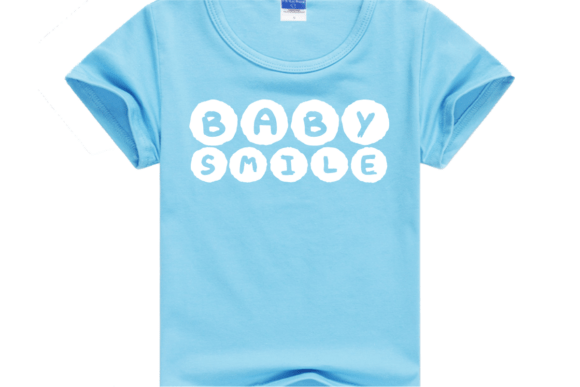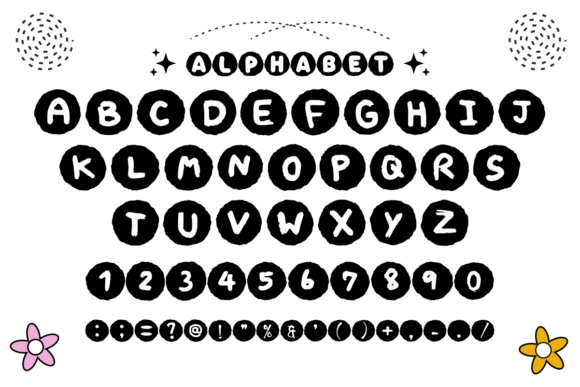
The Perfect Party Companion: Unlocking the Magic of Birthday Party Font
You know that moment when you’re brainstorming ideas for a birthday party, and the excitement is palpable? The laughter of the kids, the anticipation of gifts, and the colorful decorations all blend together to create an atmosphere of pure joy. As a designer, you want to capture that essence and translate it into a visual representation that will leave a lasting impression. That’s where the Birthday Party Font comes in – a playful and modern typeface that brings a dash of whimsy to your designs.
This charming uppercase font is more than just a decorative element; it’s a key to unlocking the magic of your creative projects. With its circular flourish and cartoon-inspired design, Birthday Party Font is a must-have for any designer looking to add a festive touch to their work. Whether you’re designing party printables, sublimation t-shirts, or coffee mugs, this font is sure to bring a smile to the faces of your clients and customers.
Designer Review: Birthday Party Font
Overall, I think the Birthday Party Font is a fun and playful choice for celebratory designs. ✨ It’s perfect for creating energetic and lively graphics, like invitations, banners, or social media posts. The font’s bold and colorful nature makes it stand out, and it’s sure to grab people’s attention.
- Works well for: Party invitations, social media posts, event graphics, and other celebratory designs.
- Perfect for: Creating a lively and energetic atmosphere, adding a touch of whimsy and fun to designs.
- Great for: Standalone use, especially when paired with bright and bold colors.
However, there are some limitations to consider. ⚠️ The font may be too loud or overwhelming for more subdued designs, and it might not be the best choice for formal or professional projects. Additionally, some characters may not be as detailed or well-designed as others, which can affect the overall quality of the font.
Overall, I think the Birthday Party Font is a fun and creative choice for designers who want to add some excitement to their projects. While it may have some limitations, it’s a great option for those who want to create energetic and playful designs.
Getting the Most Out of the Birthday Party Font
To get the most out of the Birthday Party Font, consider the following tips:
– Use the font in conjunction with colorful graphics and illustrations to create a festive atmosphere.
– Experiment with different font sizes and styles to add visual interest to your design.
– Use the font to create custom invitations, party banners, and other celebratory materials.
The Birthday Party Font is commonly used for:
– Birthday invitations and party decorations
– Children’s party materials, such as banners and thank-you cards
– Social media graphics and posts celebrating birthdays and special occasions.
Alternatives to Birthday Party Font for Designers
Great Vibes is a modern, cursive script font perfect for creating a fun and lively atmosphere. It’s ideal for wedding invitations, event promotions, and social media graphics. Compared to Birthday Party Font, Great Vibes is more elegant and sophisticated, making it suitable for a wider range of occasions.